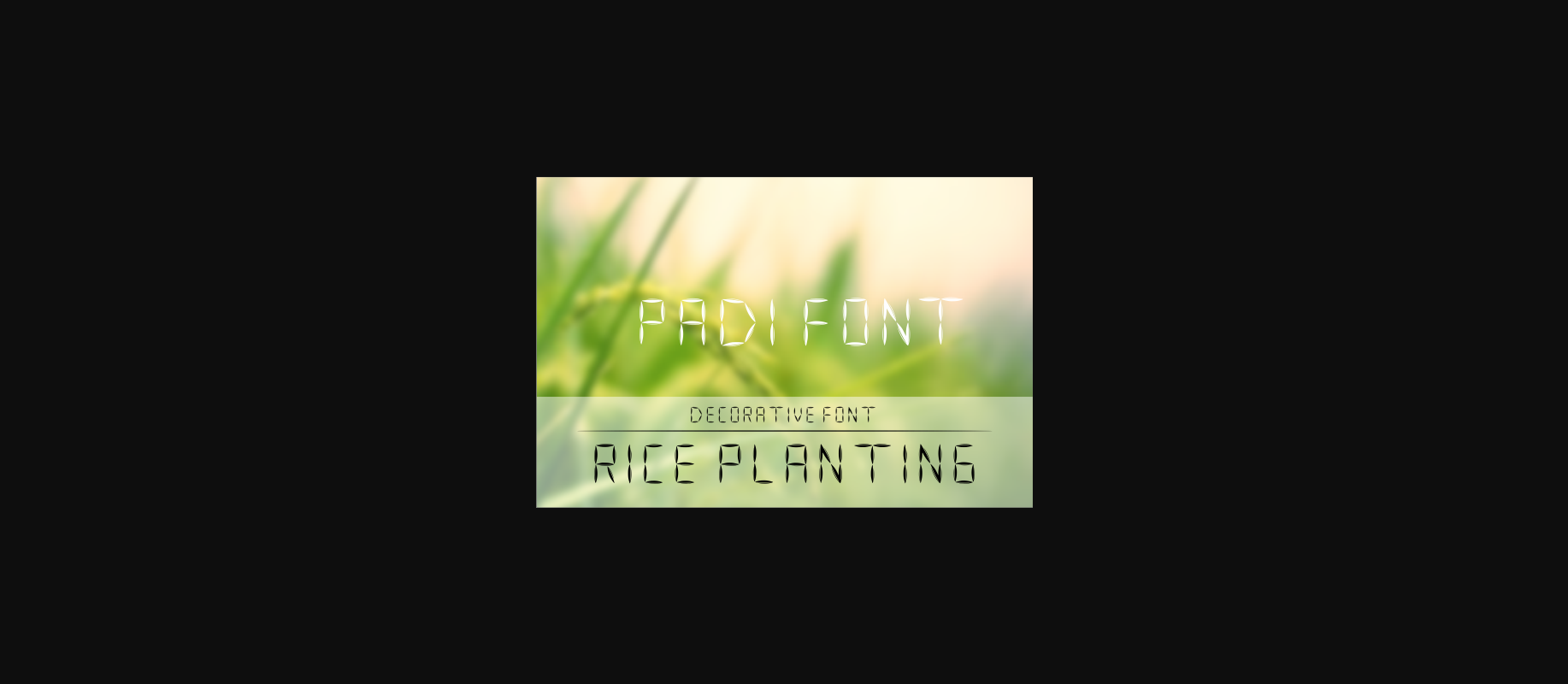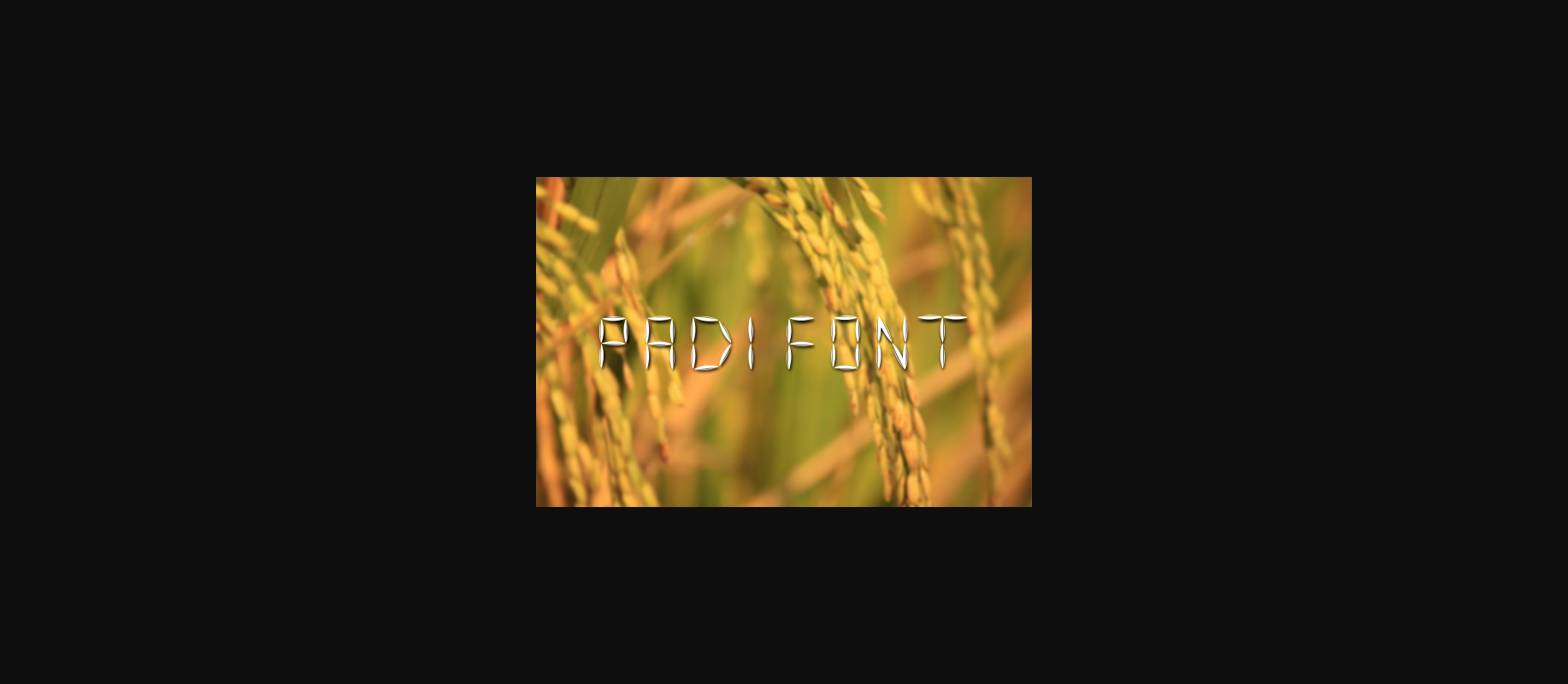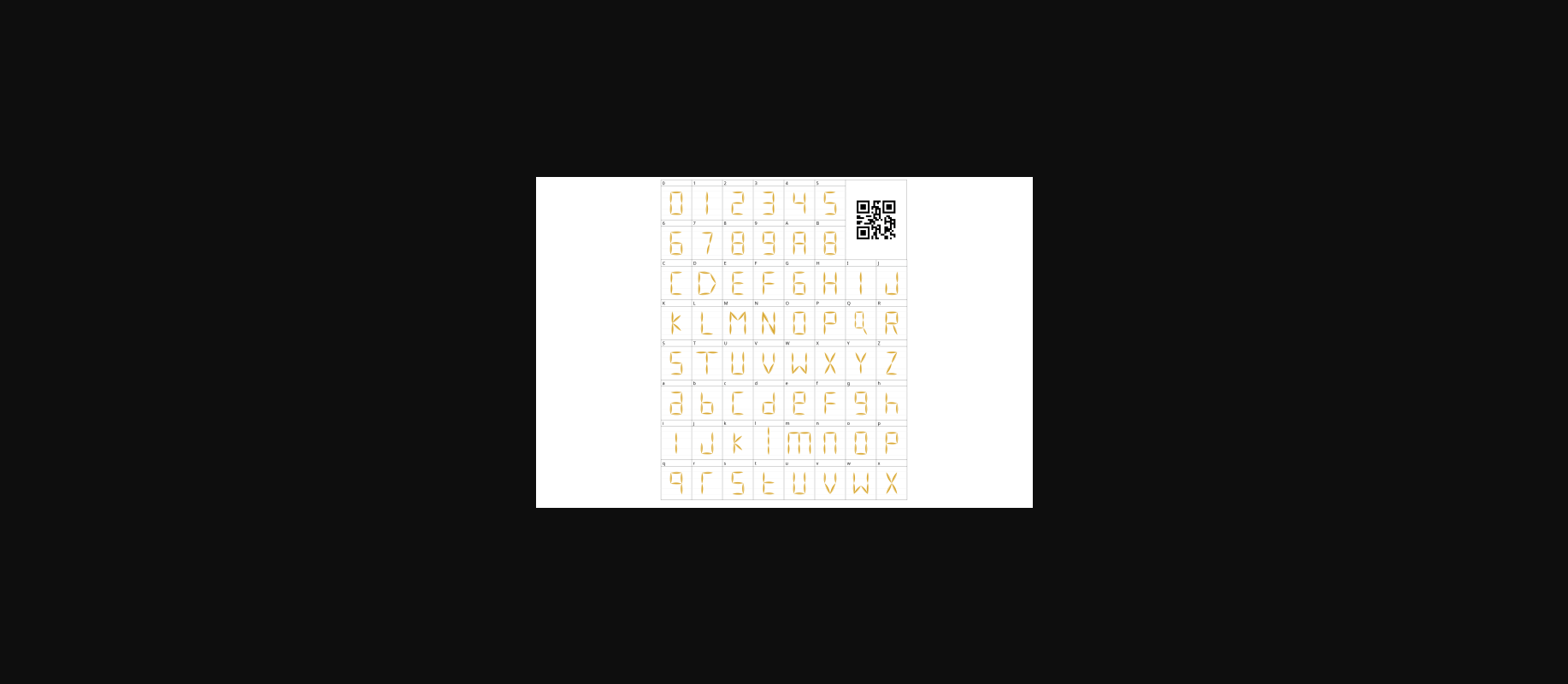
Padi Font
About Padi Font
Padi is a cool and interesting looking decorative font, that will fit perfectly on each of your designs.
Have fun with this beautiful font and explore its endless variations.